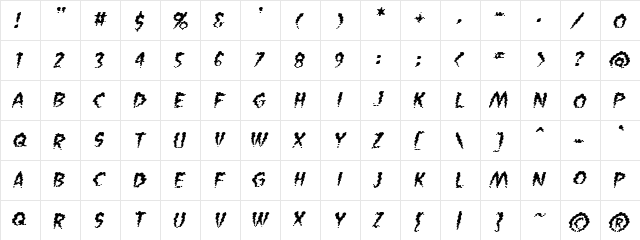
Vaporized BB Italic
| Foundry | Nate Piekos. Blambot.com |
| Designer | Nate Piekos |
Vaporized BB is a composed and adaptable typeface that performs quietly and consistently across a wide range of design contexts. The slanted form adds forward momentum and visual energy.
Pro Tip: Use Vaporized BB for emphasis, pull quotes, and subheadings where its slanted energy can add rhythm to the layout.